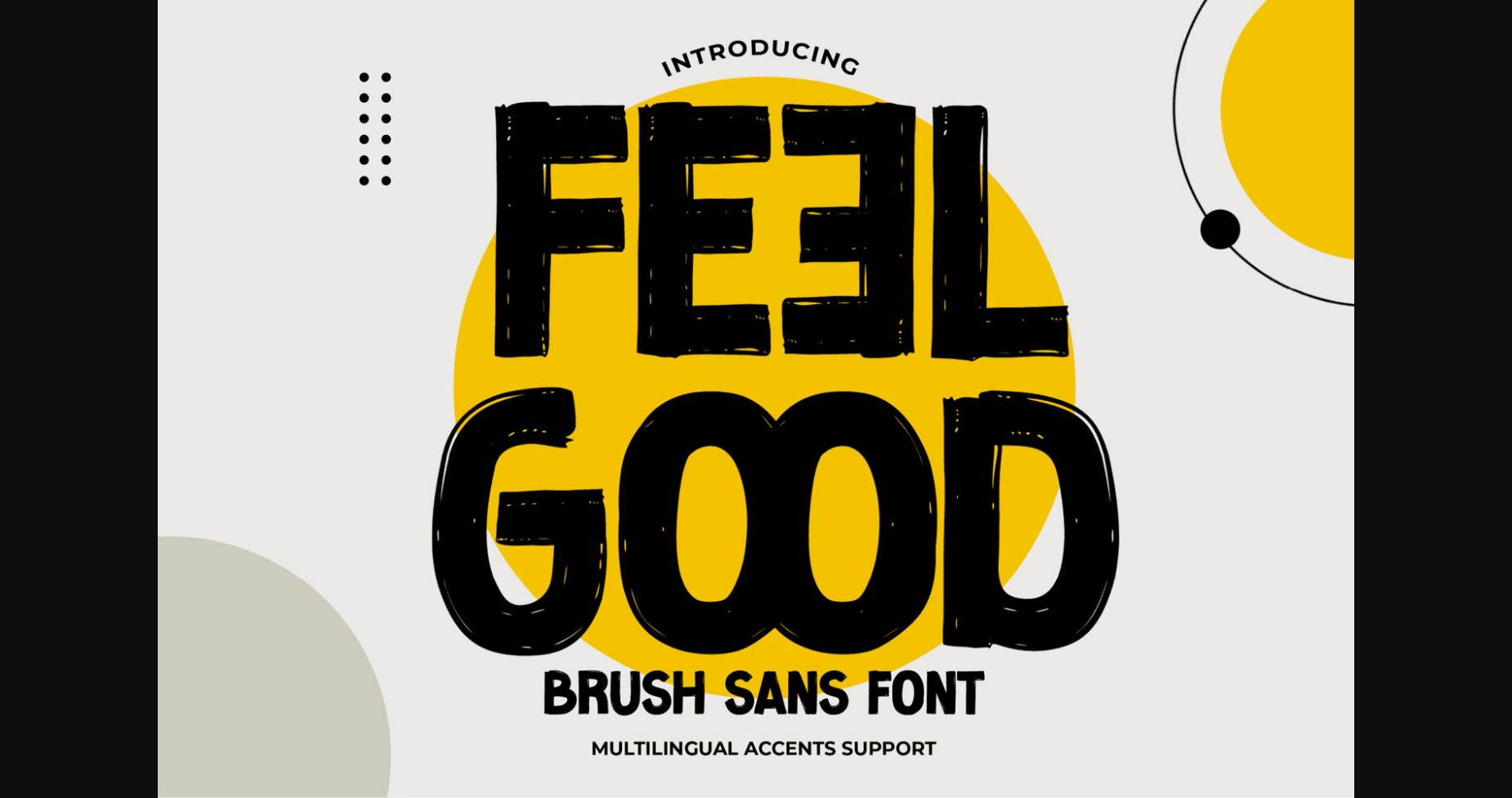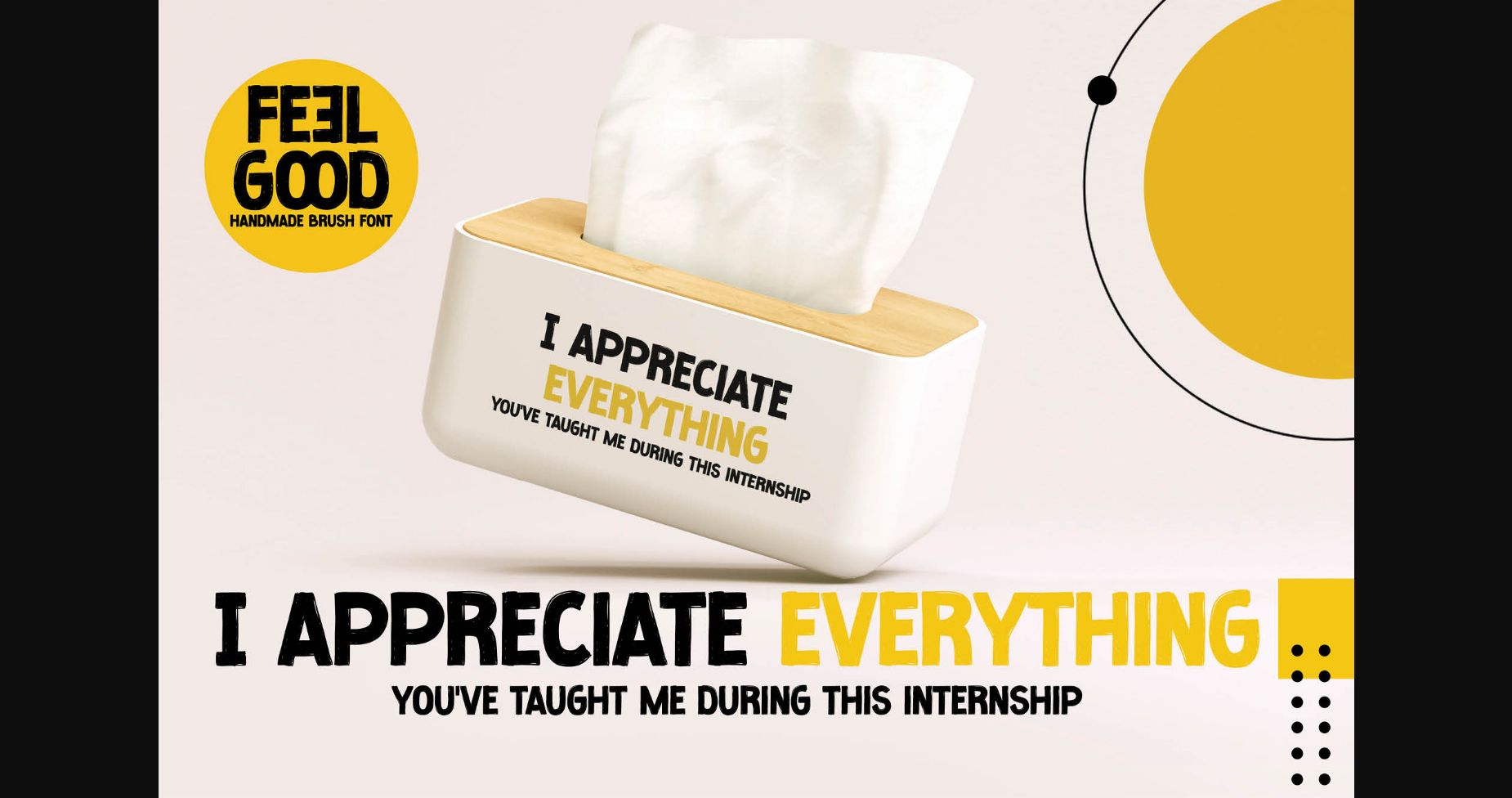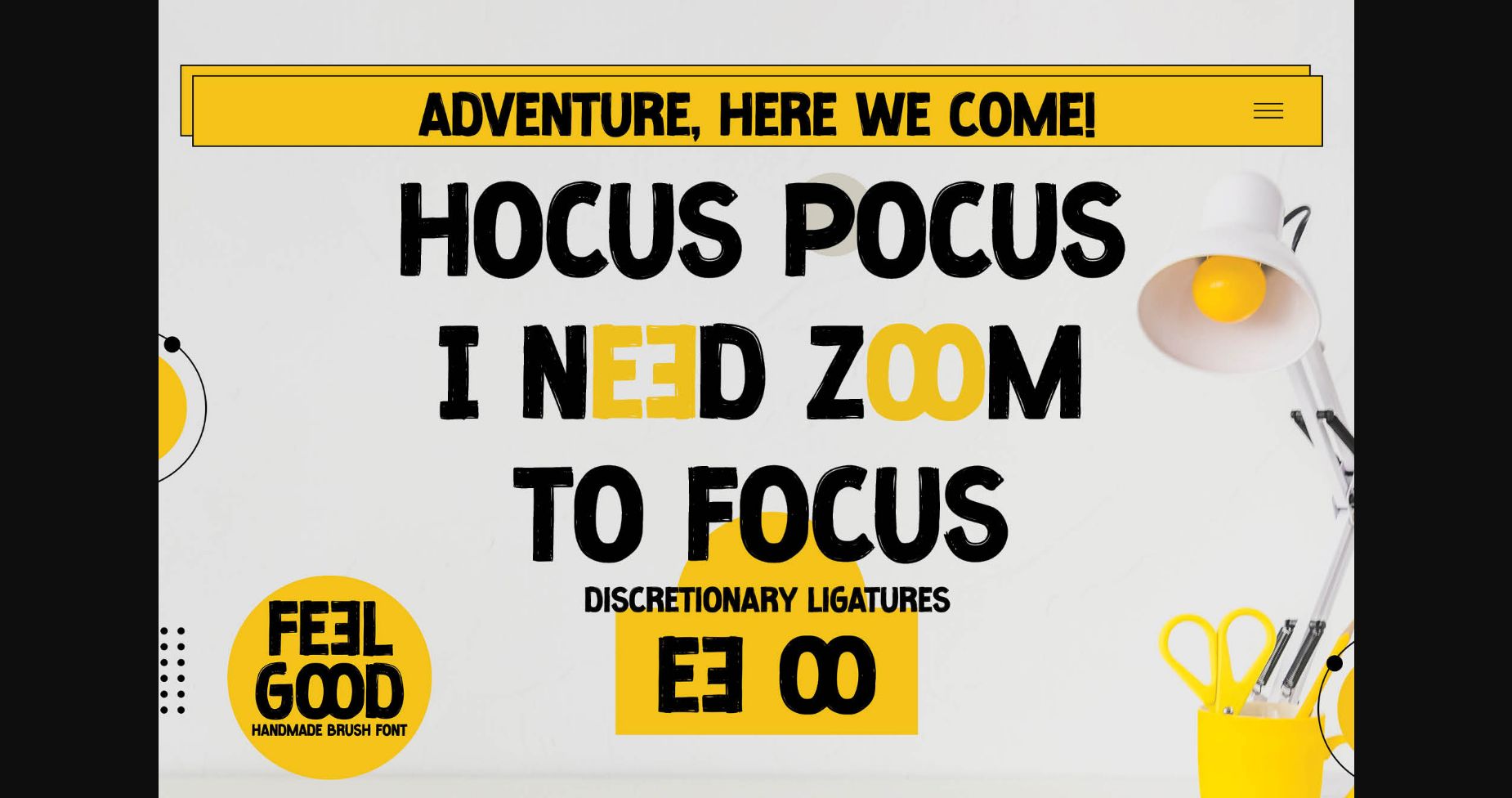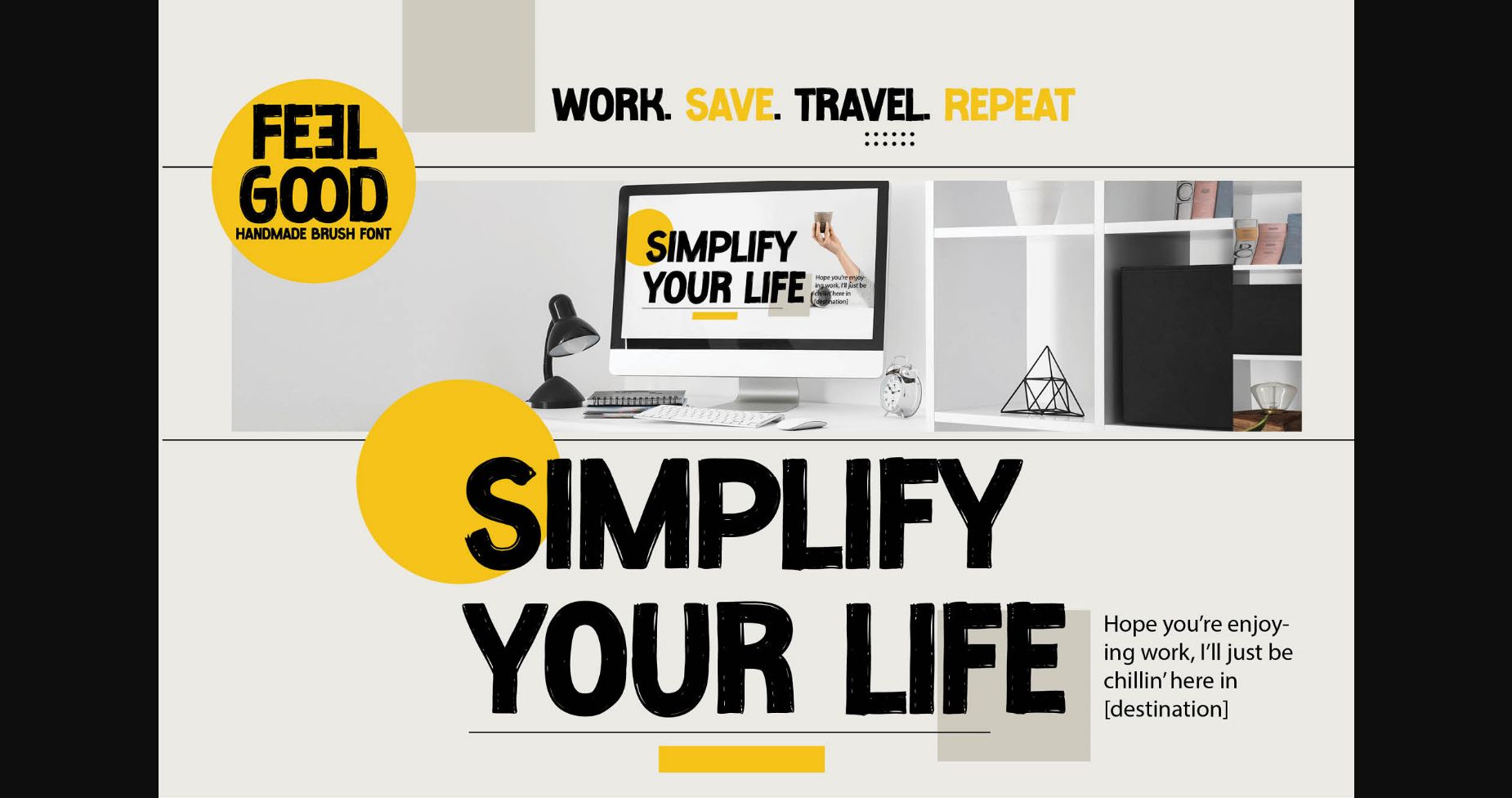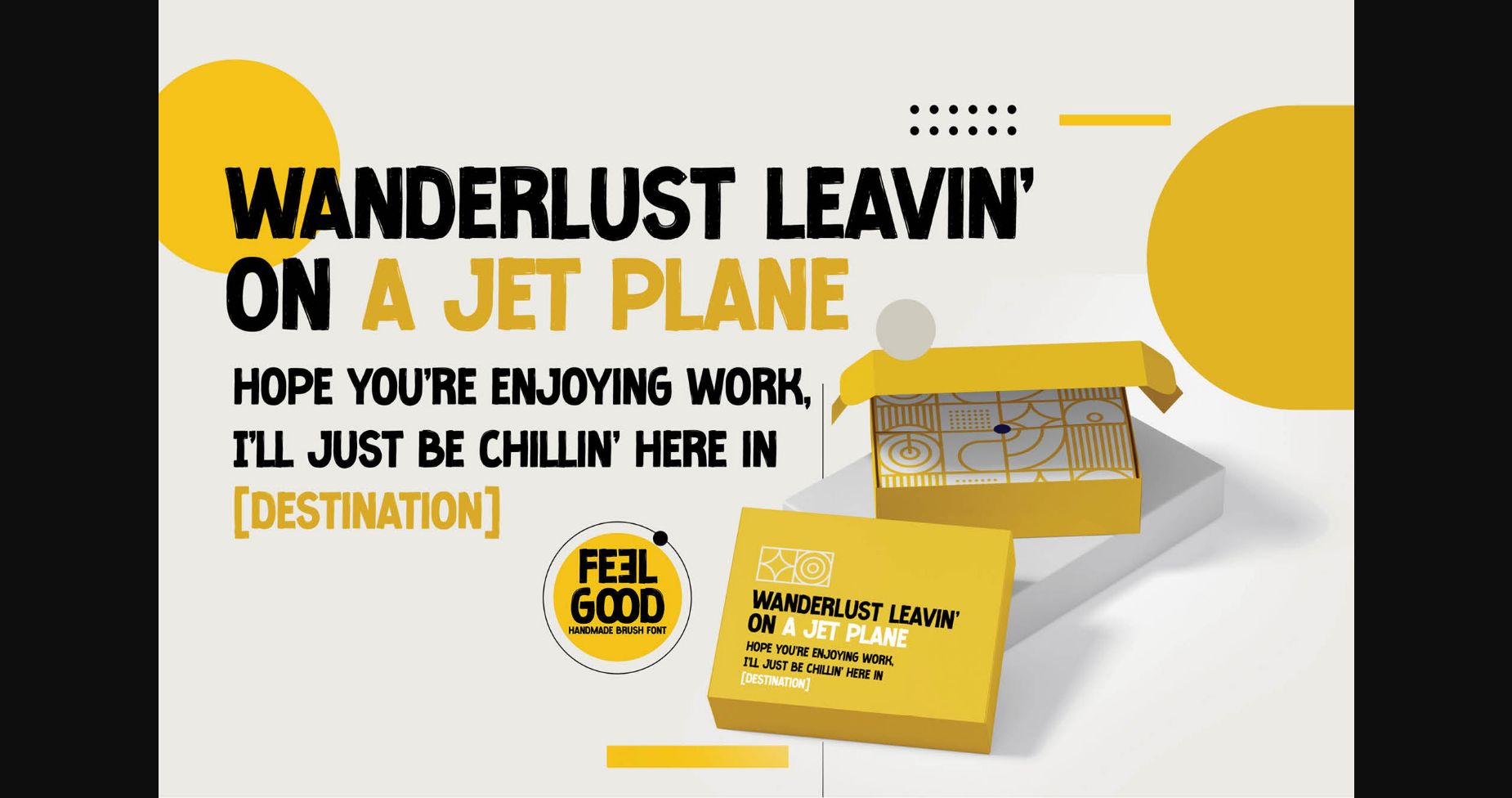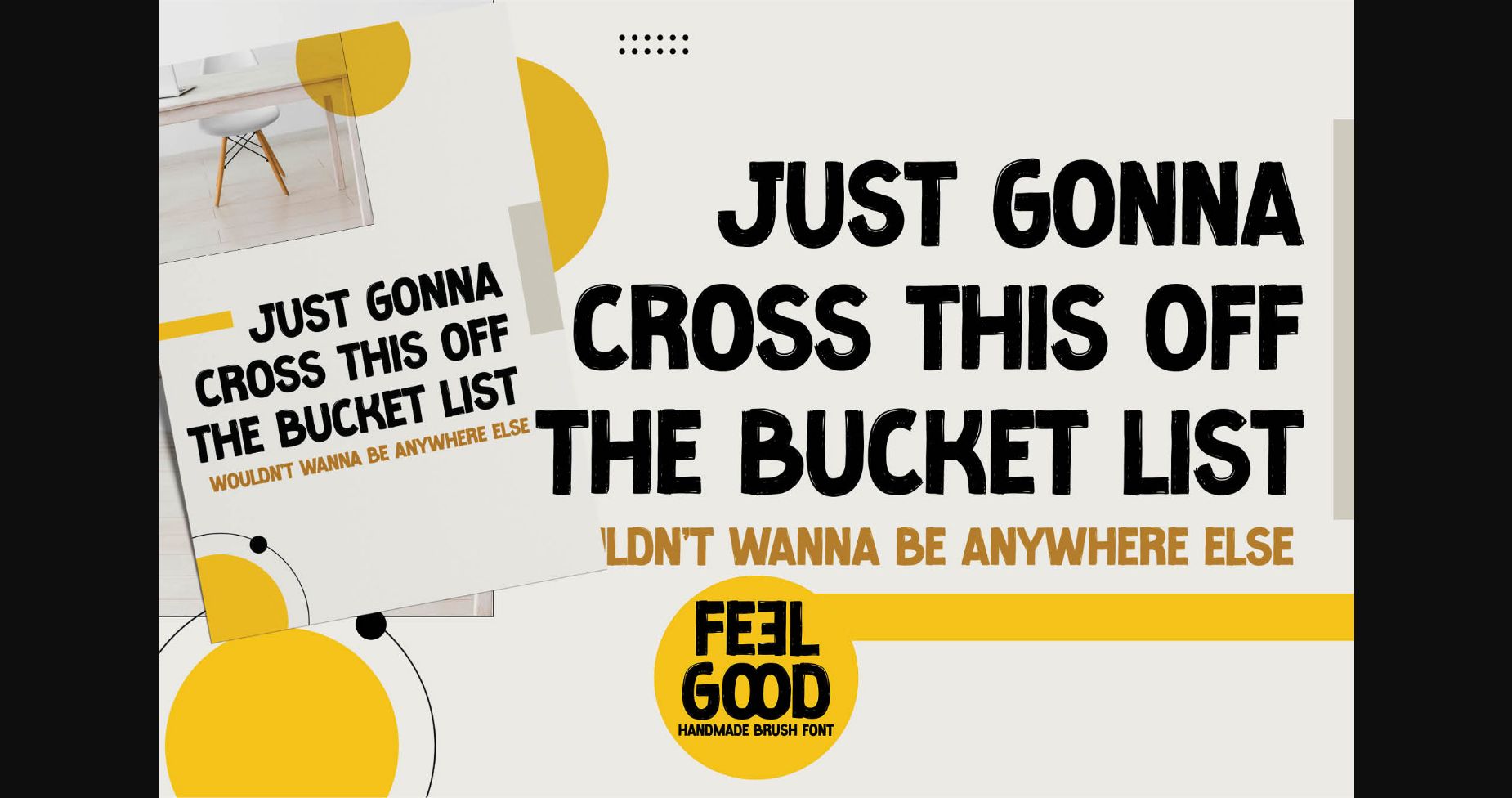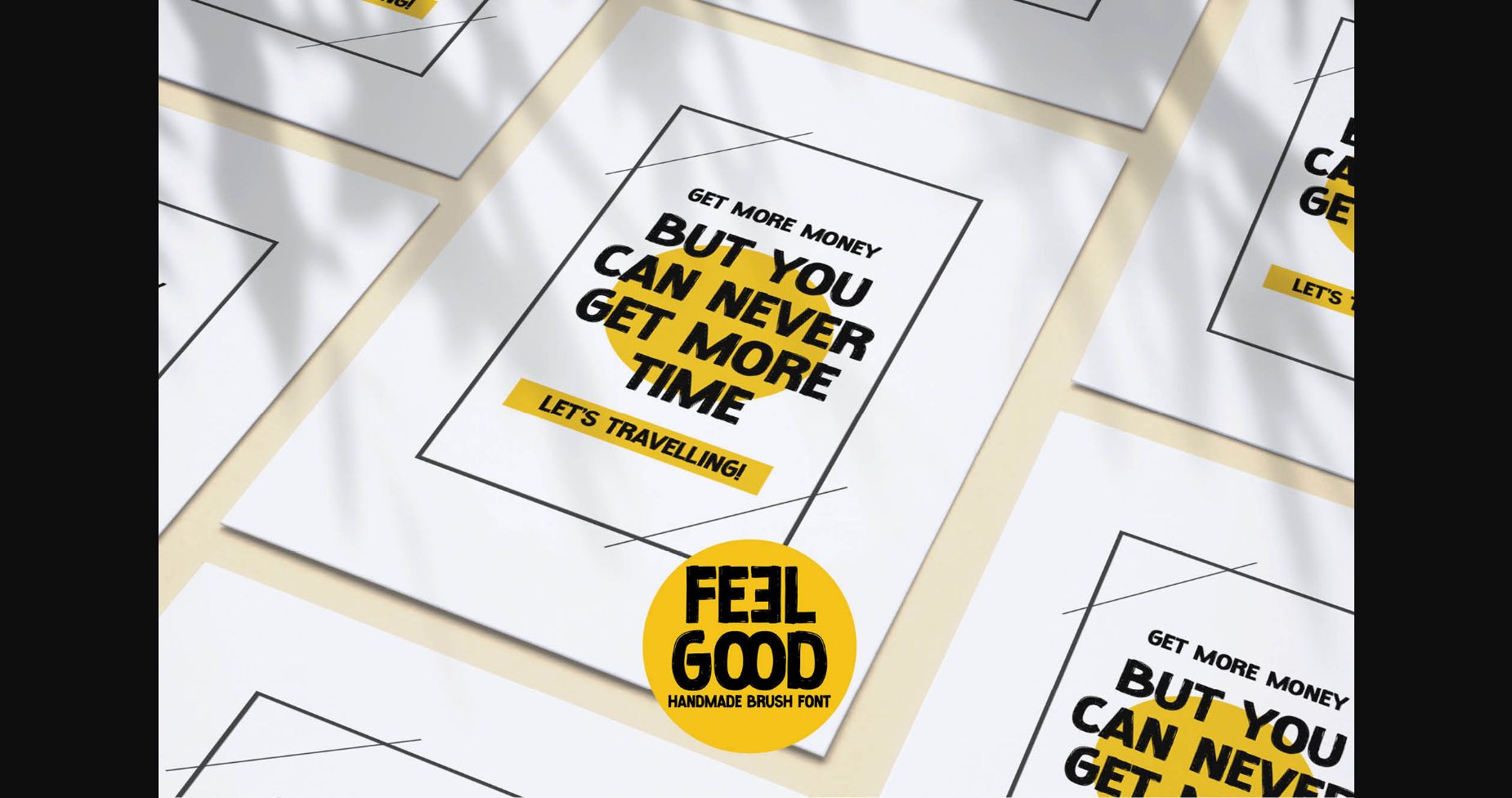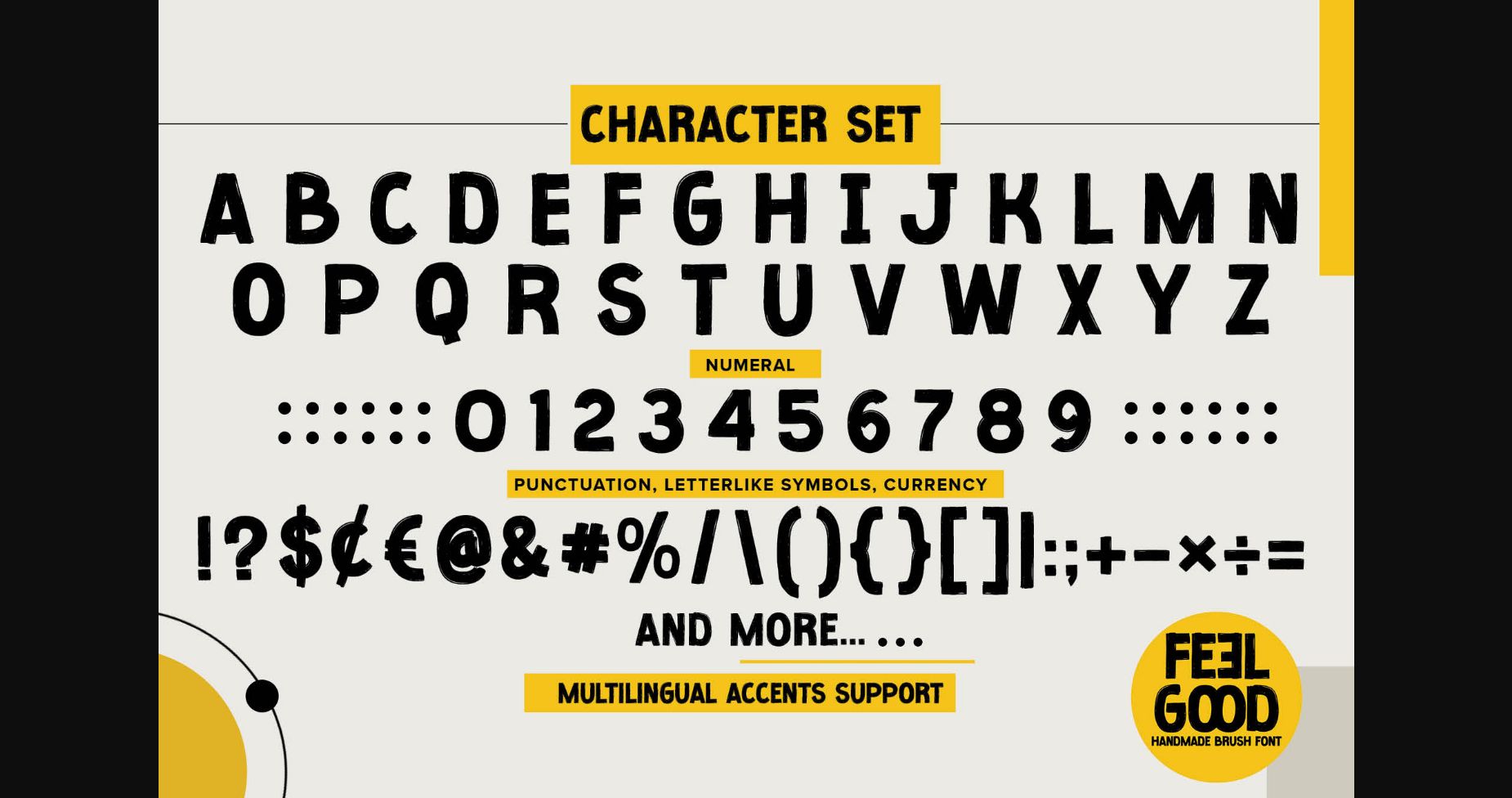
Feel Good Font
About Feel Good Font
Feel Good is a brush sans serif font written casually and quickly for a natural appearance. It is perfect for homeware designs, product packaging, banners, marketing materials, and other bold creative projects.